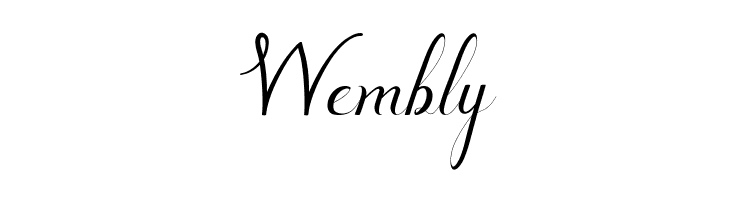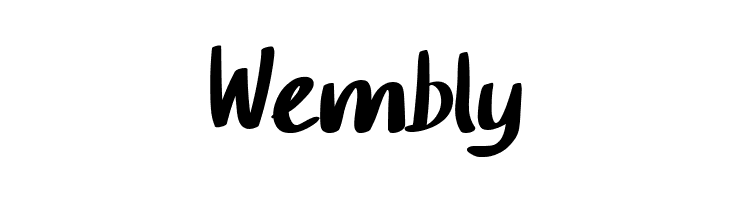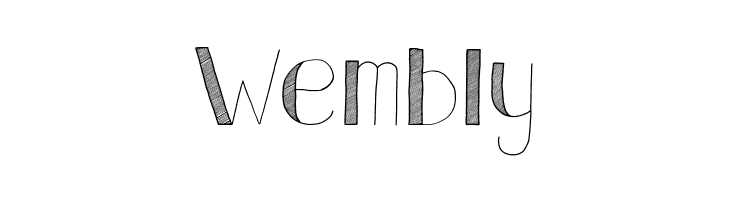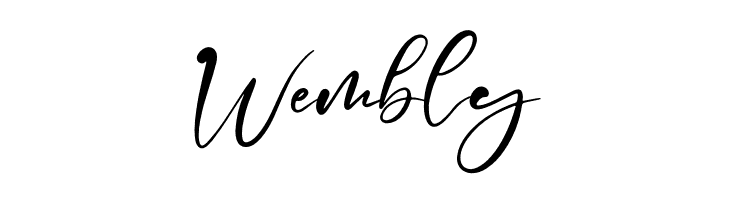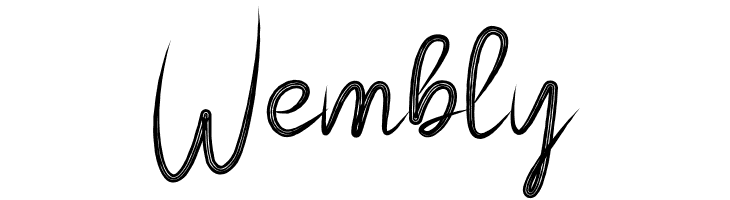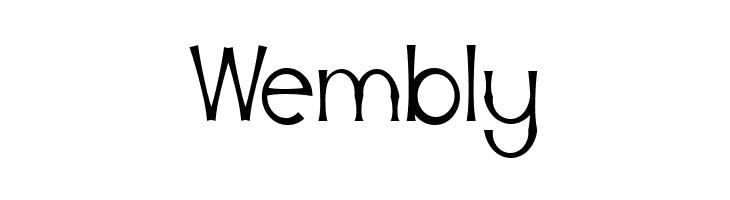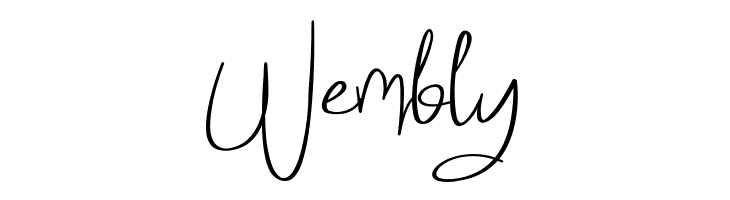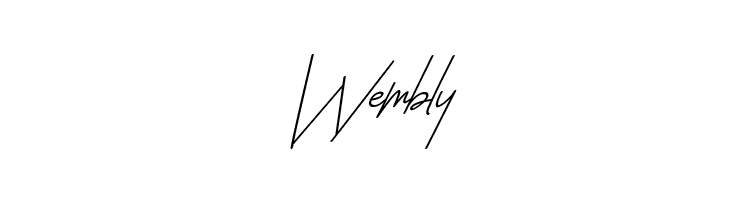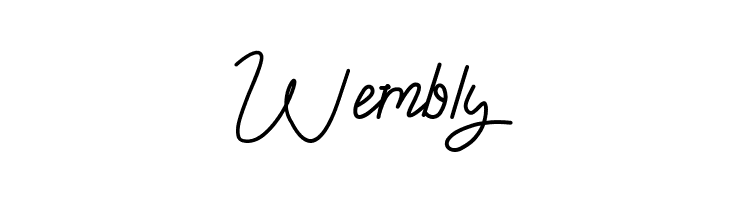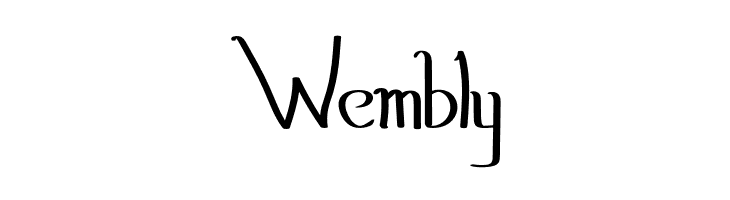
A flowing, elegant script font with a handwritten style.
A bold, brush script font with dynamic, hand-painted strokes.
A graceful script font with flowing, interconnected letters and a sophisticated style.
A bold, brush-like handwritten font with a playful and dynamic style.
A modern, hand-drawn font with artistic shading and dynamic strokes.
An elegant, flowing script font with graceful curves and sophisticated flair.
A cursive, handwritten font with elegant loops and a sophisticated style.
A dynamic and elegant script font with flowing, artistic letterforms.
A hand-drawn, artistic font with a whimsical and dynamic style.
A futuristic, abstract font with geometric and cryptic character designs.
A modern, artistic handwritten font with dynamic and flowing letterforms.
A rustic, vintage typewriter-style font with a distressed, hand-crafted appearance.
An elegant, cursive handwritten font with flowing lines and sophisticated curves.
An artistic and elegant font with modern and classic elements.
A bold, brush-like font with an artistic and expressive style.
A dynamic, italic handwritten font with elongated, angular strokes and tight spacing.
A bold, textured, hand-drawn style font ideal for creative projects.
A flowing, elegant script font with a sophisticated handwritten style.
A bold, rustic font with a distressed, vintage appearance.
A flowing, cursive font with elegant and sophisticated styling.
A hand-drawn, ink-like font with a rustic and artistic style.
A cursive, handwritten font with elegant, flowing strokes and a sophisticated style.
A bold, expressive script font with fluid, interconnected strokes.
A whimsical, hand-drawn font with playful curves and artistic flair.
A hand-drawn, narrow font with an artistic and whimsical style.
An artistic and dynamic font with flowing, interconnected strokes.
A hand-drawn, sketch-like font with thin, irregular strokes for a casual, artistic feel.
A dynamic brush-style font with expressive strokes and artistic flair.
A sophisticated, elegant handwritten font with fluid, graceful strokes.
A whimsical and elegant script font with flowing strokes.
A jagged, hand-drawn font with a gothic, artistic style.
A bold, futuristic font with geometric shapes and an inverse style.
A futuristic, hollow, geometric font with a modern aesthetic.
A futuristic, geometric font with bold, angular letterforms and smooth curves.